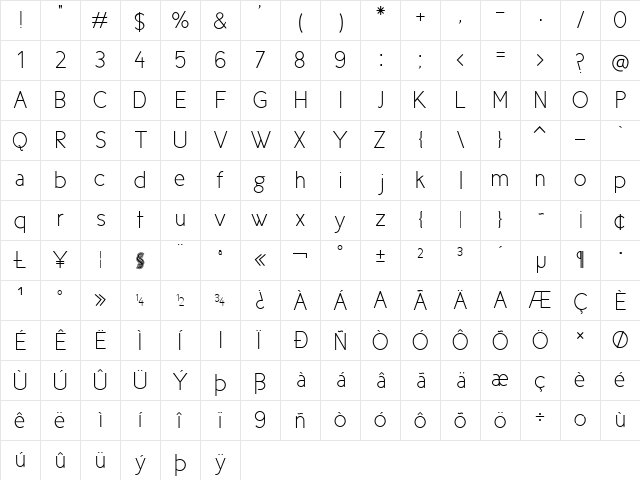
New Cicle Fina
| Foundry | La Tipomatika |
| Designer | La Tipomatika (Digital Type Foundry) |
Design Context for New Cicle Typeface
New Cicle is a composed and adaptable typeface that performs quietly and consistently across a wide range of design contexts.